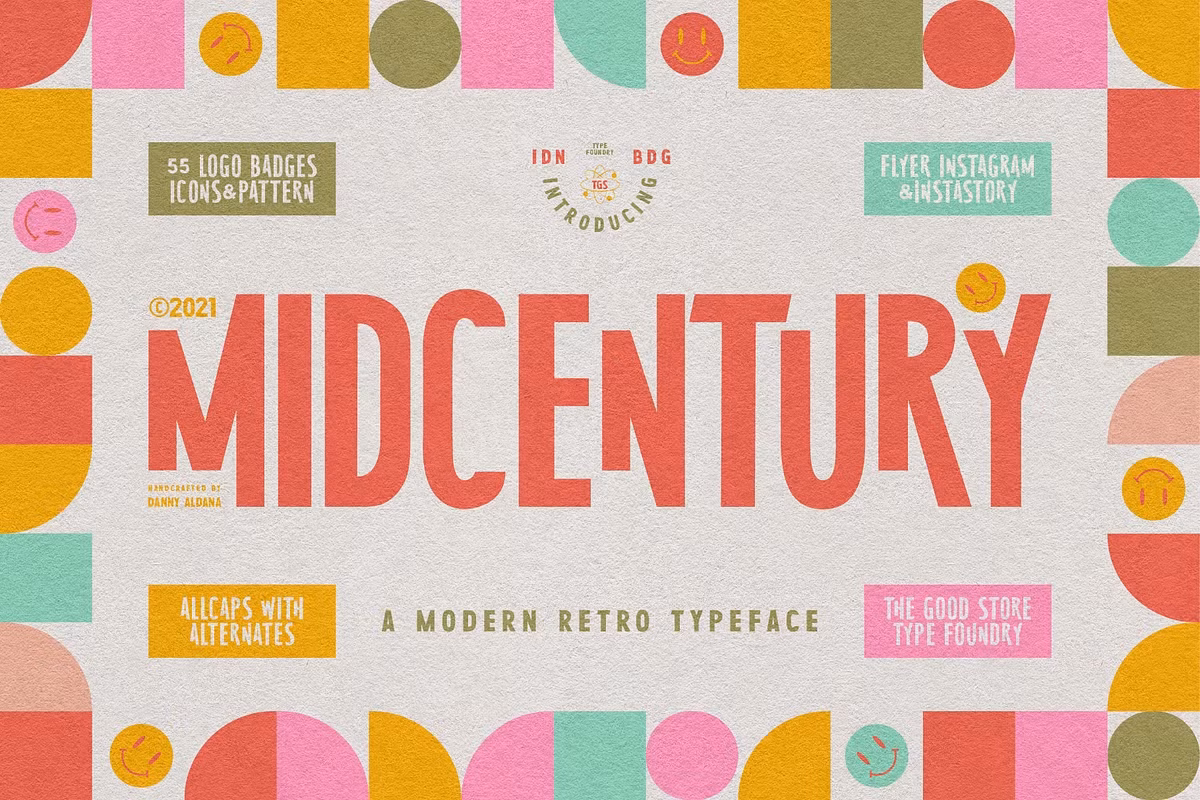
Retro, bold, and full of character, MidCentury Typeface + Extras Free Download is a stylish font inspired by the iconic design era of the 1950s and 60s. Perfect for vintage branding, signage, posters, packaging, and lifestyle products, this typeface brings nostalgic flair with a clean, modern twist.
With strong geometric forms, sharp edges, and charming extras like retro shapes and design elements, MidCentury offers both versatility and authenticity. It’s a great choice for designers looking to capture the timeless cool of mid-20th-century aesthetics in both print and digital work.